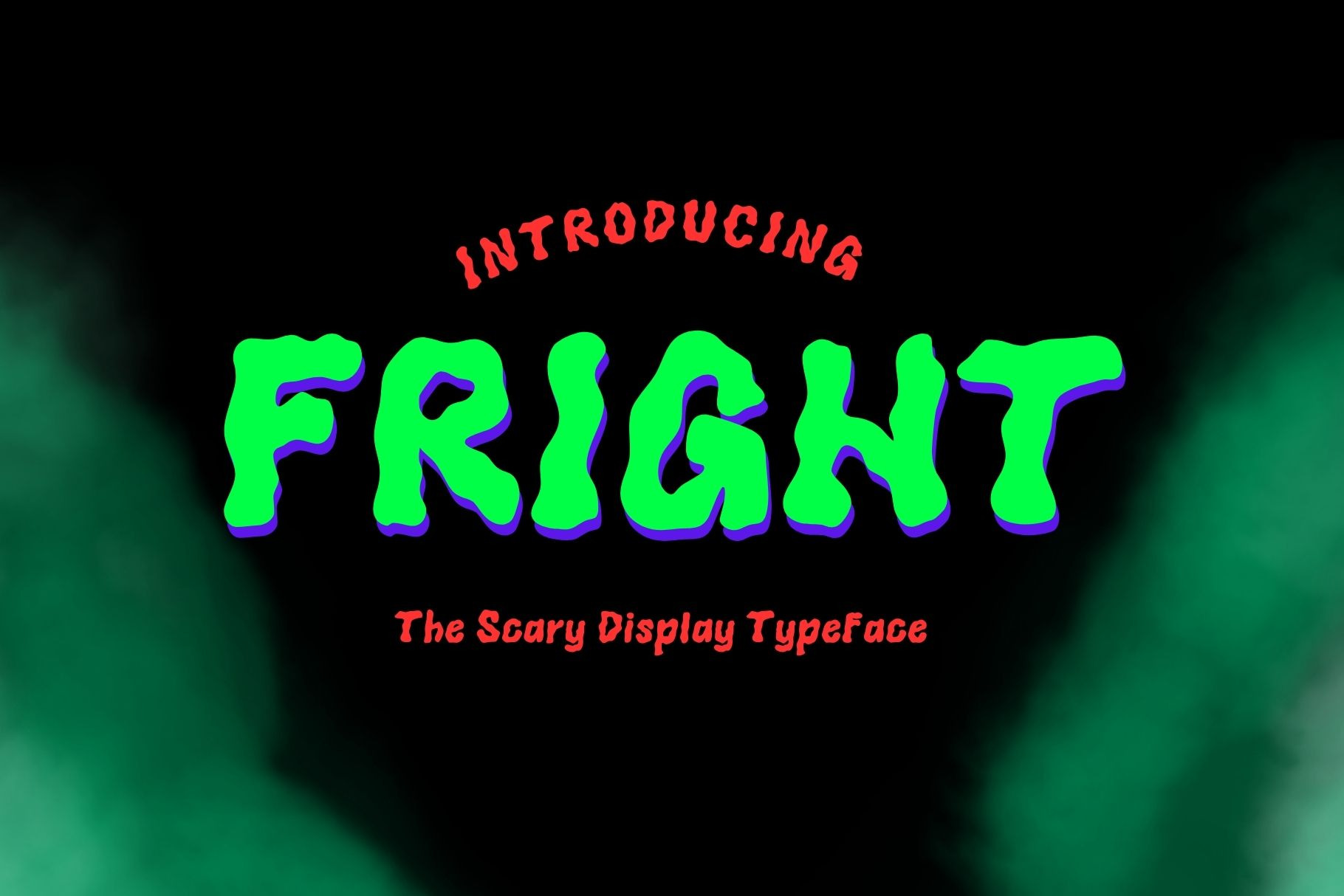
Fright - The Scary Display Font
Fright Font is a display and scary font. This font can be used for anything such as shirt designs, cards, art, quotes, social media and so much more!